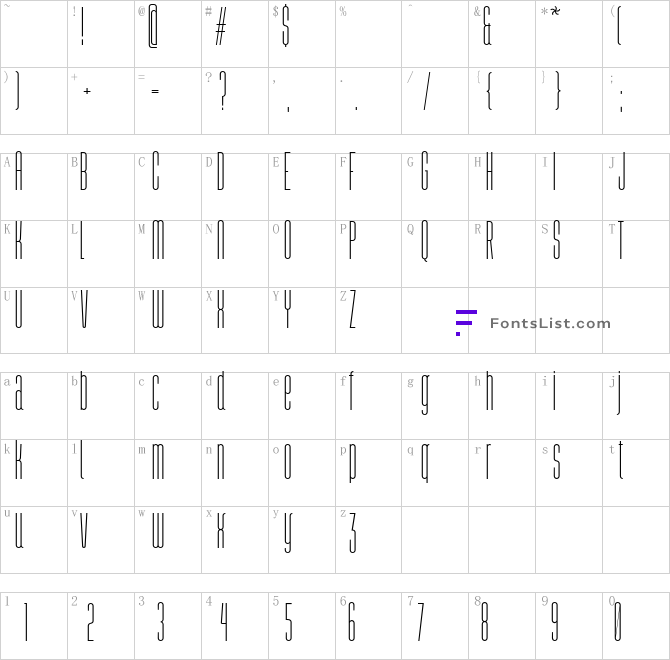
- Font Name:Abastina
Abastina.otf is a very beautiful artistic font, Abastina.otf is widely used in the design and printing of various books and pictures,Abastina.otf has a strong visual impact,Abastina.otf is a commonly used font in newspapers, magazines and books, and is used in posters, e-commerce Poster design, store design, logo design, font design and other fields.Abastina.